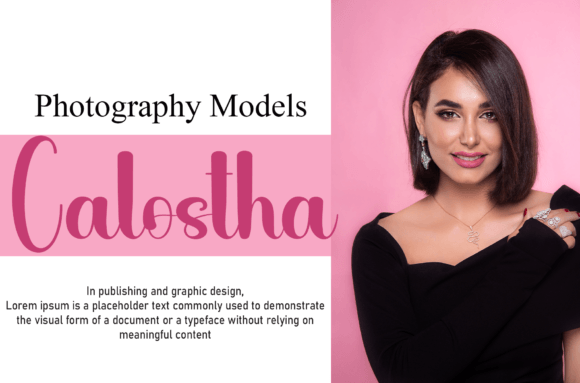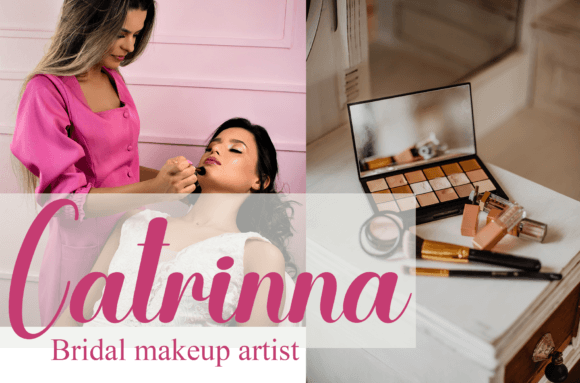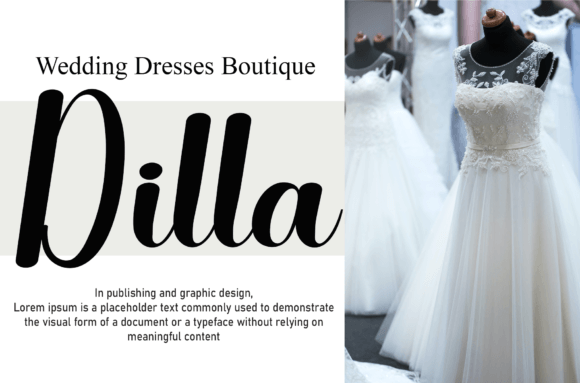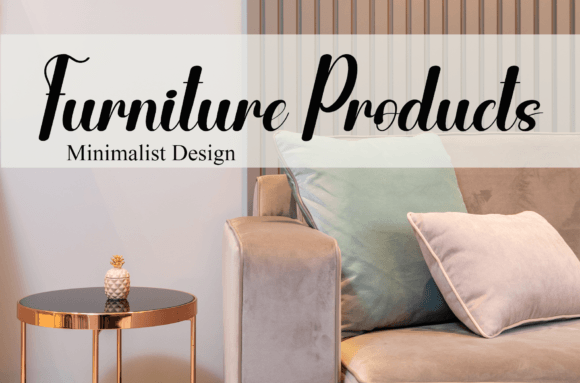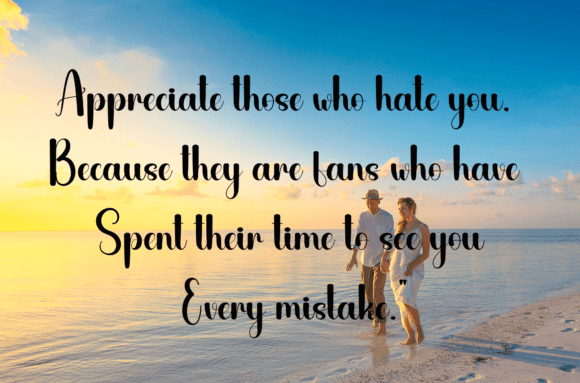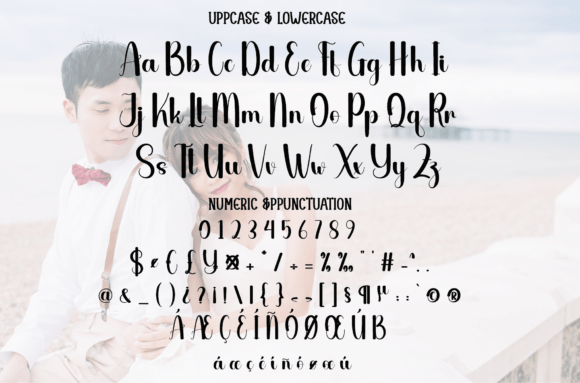
The Perfect Font for Your Special Day
As a designer, there’s nothing quite like the thrill of bringing a client’s vision to life. You’ve poured over inspiration boards, crafted the perfect color palette, and carefully selected the font that sets the tone for their special day. And then, it hits you – the perfect font to make their wedding invitations shine. For many designers, the search for that elusive font can be a daunting task, but we’re here to tell you that your search is over.
Introducing Bridal Ceremony Font, a sweet and friendly handwritten font that’s fresh, neat, and full of charm. This delightful font is perfect for writing wedding invitations, cards, or any other design that needs a fun touch. With Bridal Ceremony Font, you’ll be able to create designs that are both elegant and playful, making it a valuable addition to any designer’s toolkit.
Bridal Ceremony Font Key Features
- Font Style: Elegant, cursive script with a touch of romance and sophistication.
- Character Set: Includes a wide range of characters, including uppercase and lowercase letters, numbers, and special characters.
- Unique Characteristics: Features intricate flourishes, swashes, and ligatures to add a touch of whimsy and personality to wedding stationery.
Bridal Ceremony Font Review
As a designer, I was excited to dive into the Bridal Ceremony Font and see how it would perform. Here’s my honest review.
- Unique and elegant design: The font has a beautiful, classic feel that’s perfect for weddings and other formal events.
- High-quality formatting: The font is well-formatted and easy to read, even at larger sizes.
- Good legibility: The font is clear and easy to understand, making it a great choice for ceremony programs and other printed materials.
- Limited character set: The font only includes basic characters and punctuation, which can be limiting for more complex designs.
- No bold or italic styles: The font only comes in regular weight, which can make it difficult to create visual interest.
- No support for non-Latin characters: The font is limited to Latin-based languages, which may not be suitable for multilingual weddings or events.
Overall, the Bridal Ceremony Font is a beautiful and elegant choice for weddings and other formal events. However, its limitations may make it less suitable for more complex designs or multilingual events. As a designer, I would recommend this font for simple, elegant designs, but may need to supplement it with other fonts or creative solutions for more complex projects.
Use the Bridal Ceremony Font in combination with other elegant and classic design elements to create a cohesive and sophisticated look.
Experiment with different font sizes and styles to add visual interest and emphasis to your text.
Consider using the font in combination with a watercolor or floral design element to add a romantic and whimsical touch.
The Bridal Ceremony Font is ideal for use in wedding invitations, programs, ceremony scripts, and other wedding-related materials.